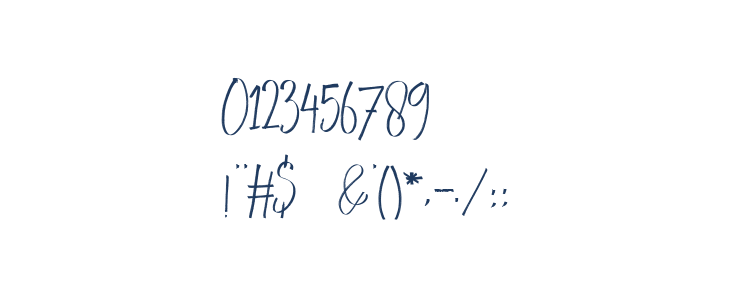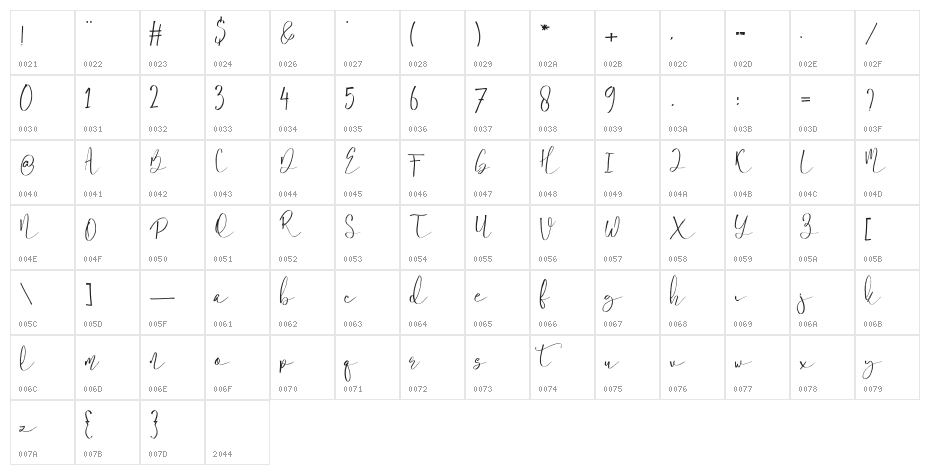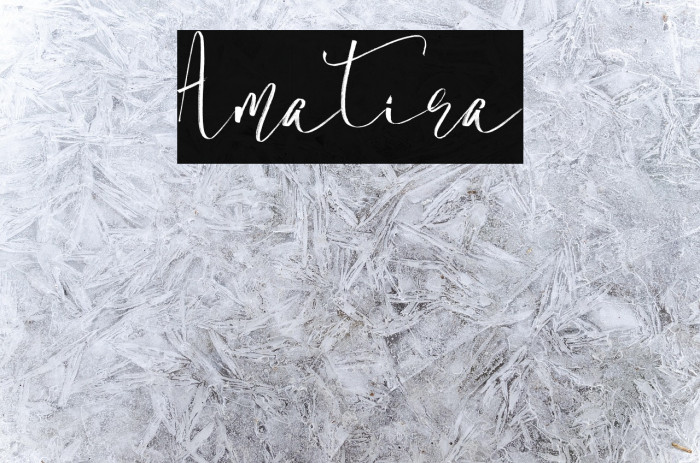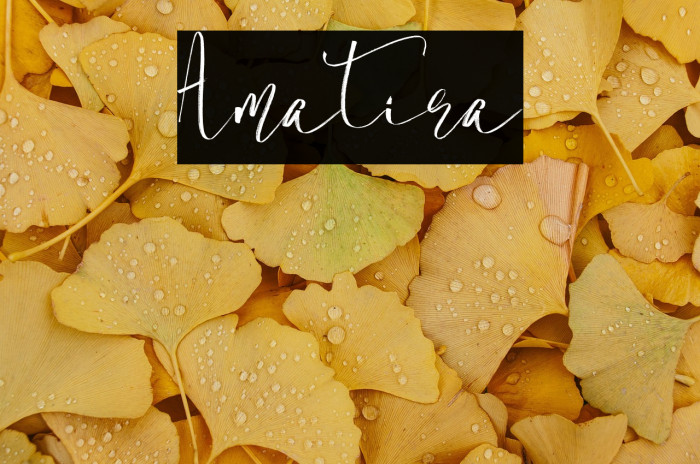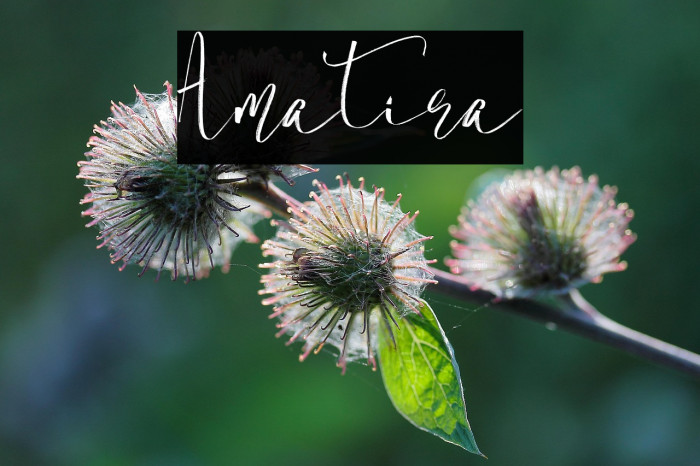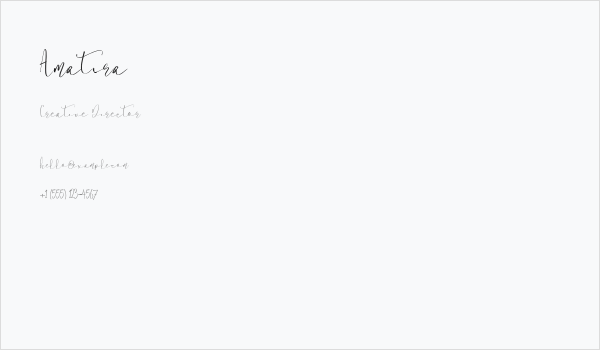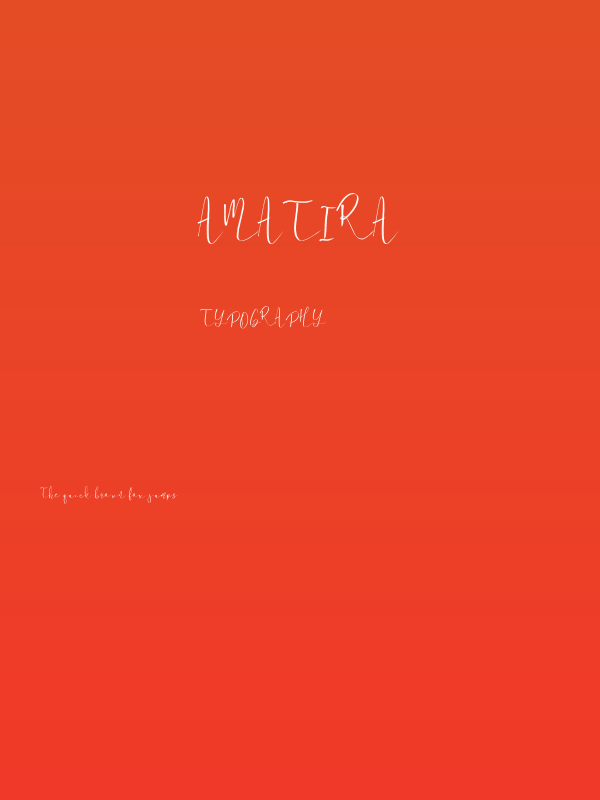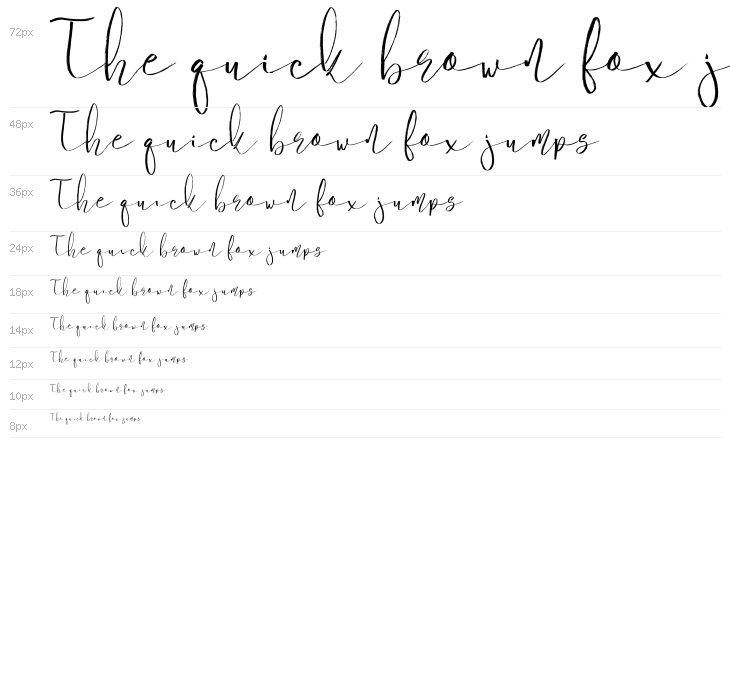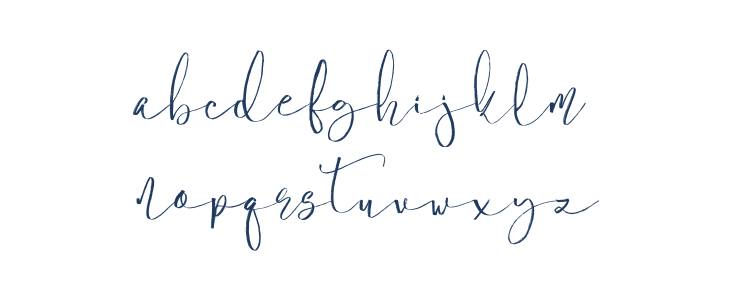
Amatira Font
Amatira Description
This font features a flowing, cursive style that exudes elegance and sophistication. The letters are connected with smooth, sweeping strokes, giving it a handwritten appearance. The uppercase letters are tall and graceful, while the lowercase letters maintain a consistent flow with delicate loops and curves. The numbers are styled to match the letters, maintaining the same fluidity and charm. Special characters are thoughtfully designed to blend seamlessly with the rest of the font, making it versatile for various uses. The overall design is both artistic and readable, suitable for projects that require a personal touch.
| Overall Style | Elegant, Handwritten |
| Proposed Projects | Ideal for wedding invitations, greeting cards, personal branding, and elegant packaging designs. |